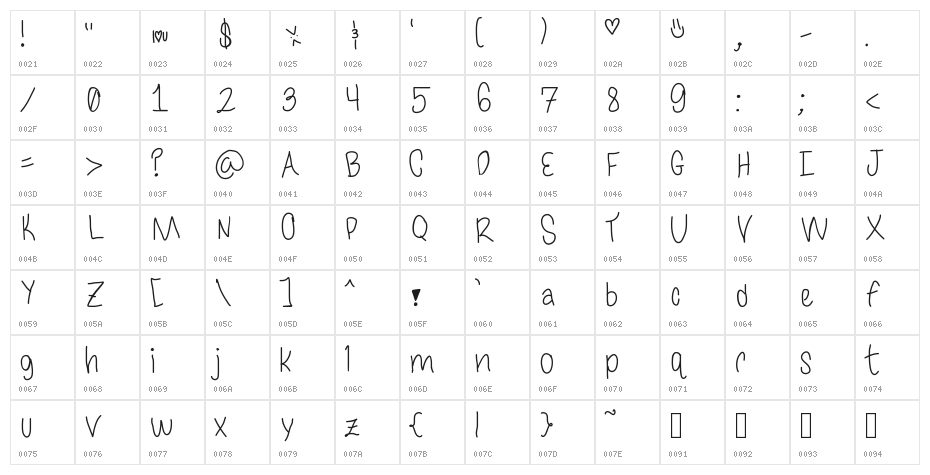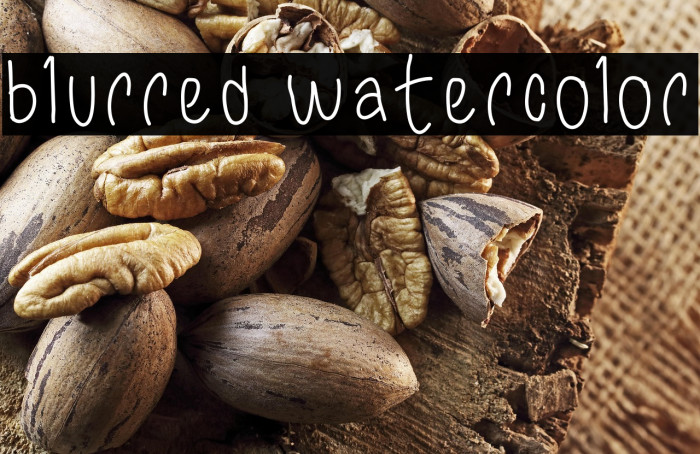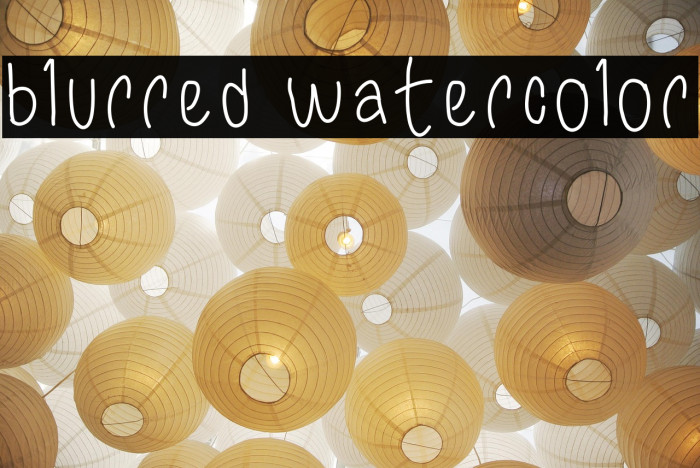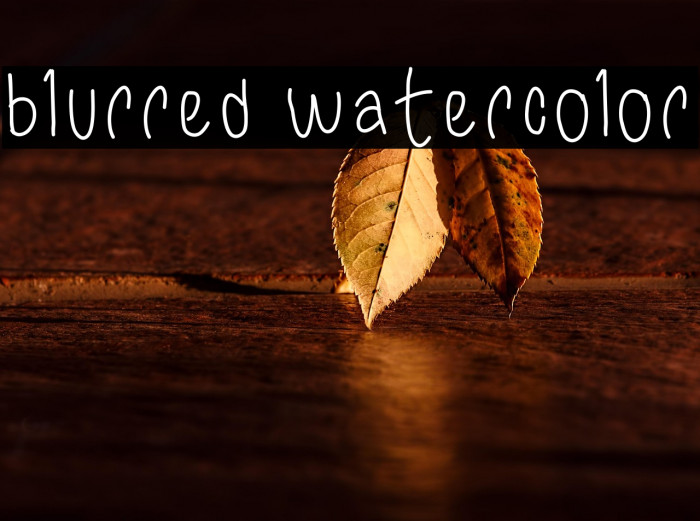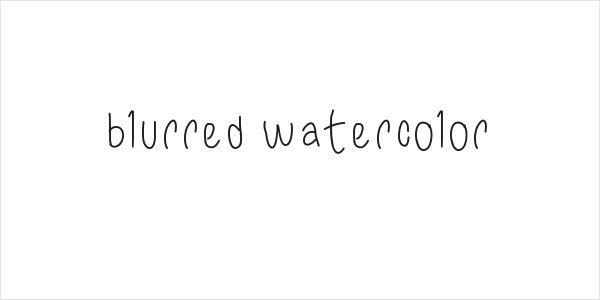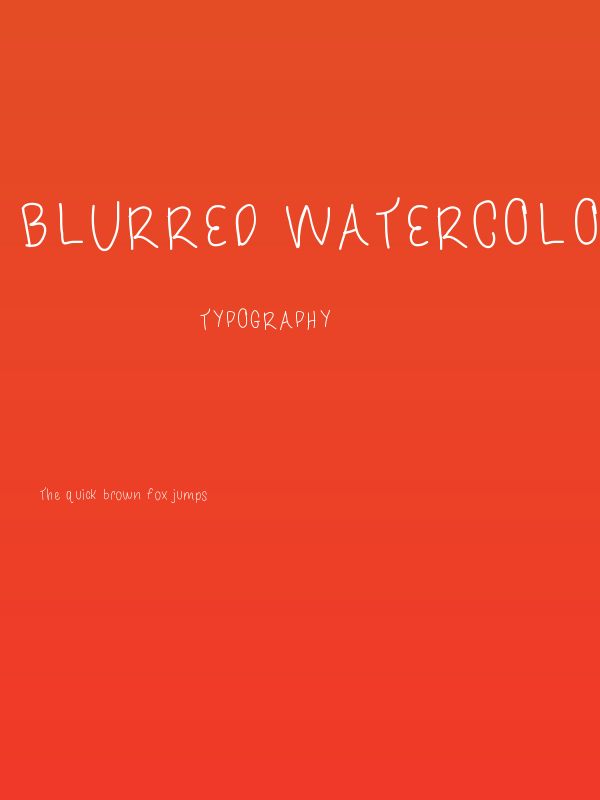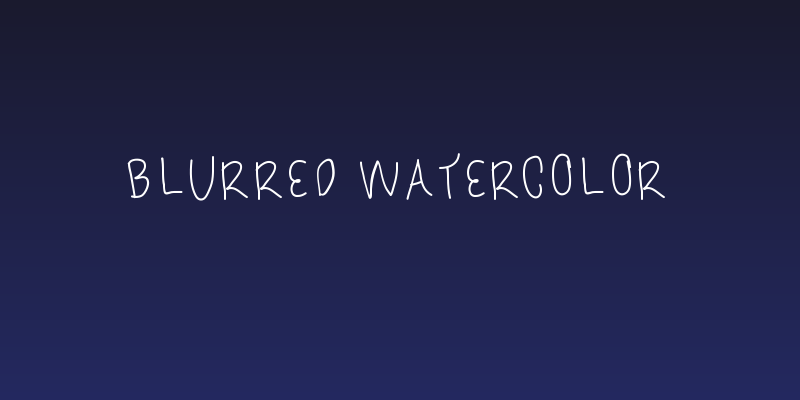
blurred watercolor Font
blurred watercolor Description
A playful, hand-drawn font with irregular, organic strokes and a casual, whimsical feel. The characters are tall and narrow with varying line thickness, giving a natural handwritten appearance.
| Overall Style | Playful, Casual, Organic |
| Use Case | Headlines, Short text, Quotes, Informal branding |
| Proposed Projects | Greeting cards, children's books, informal posters, creative branding, social media graphics. |